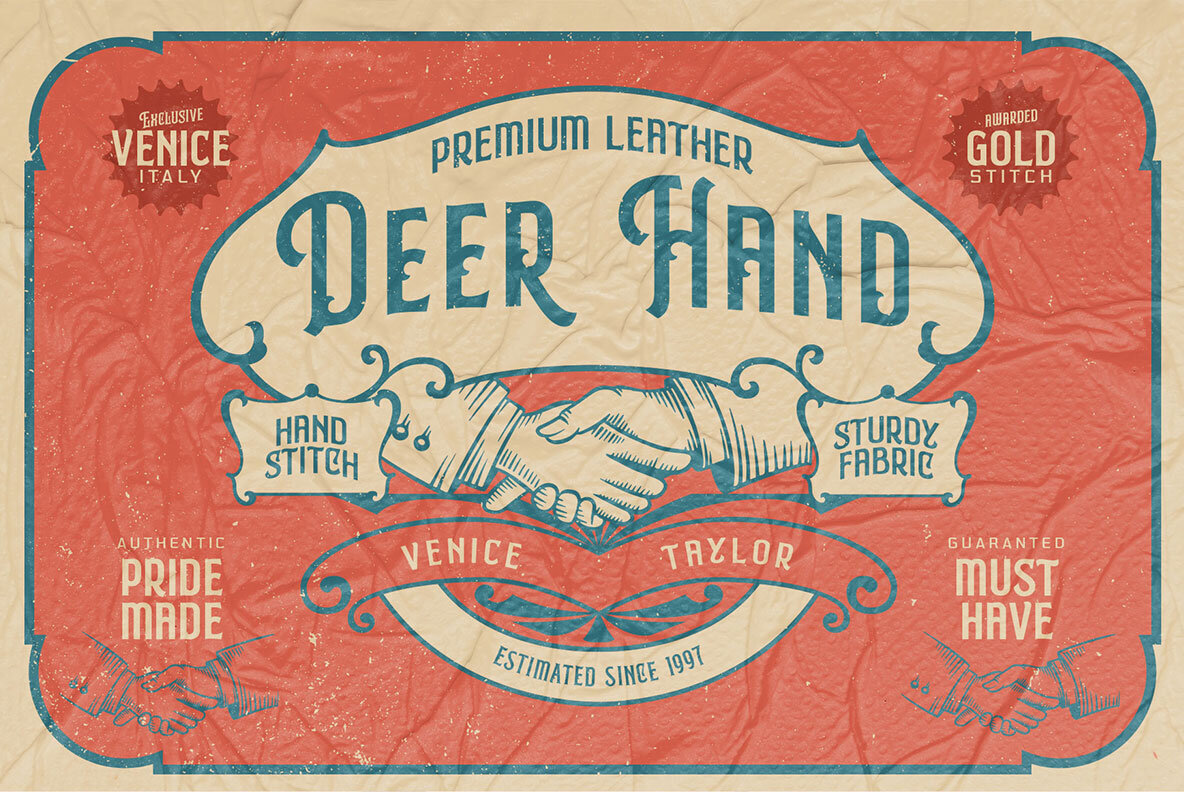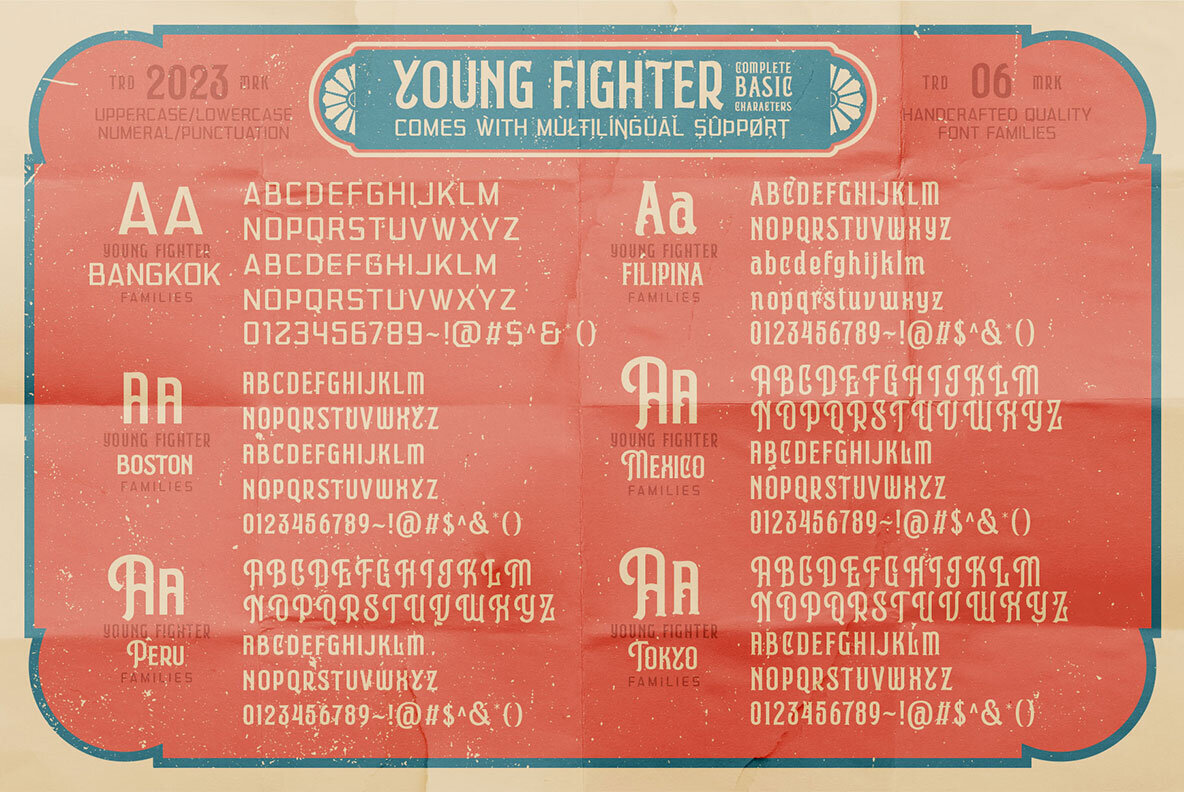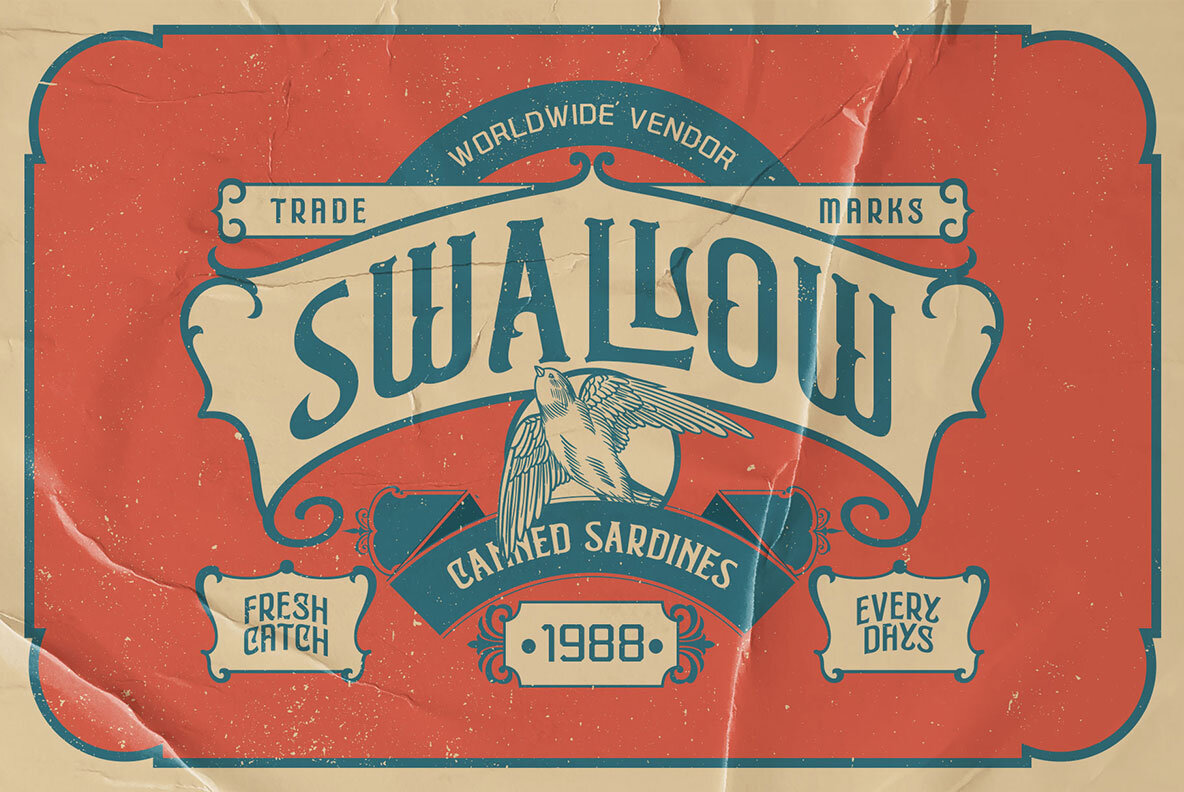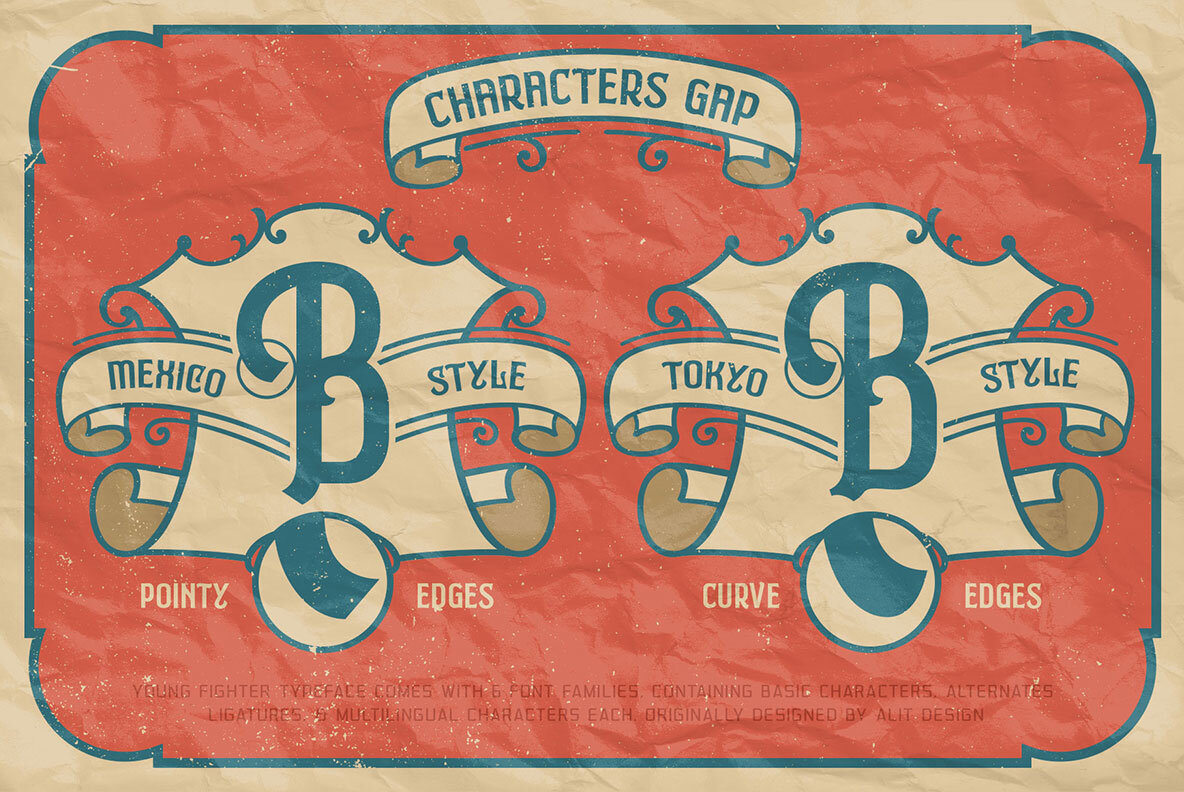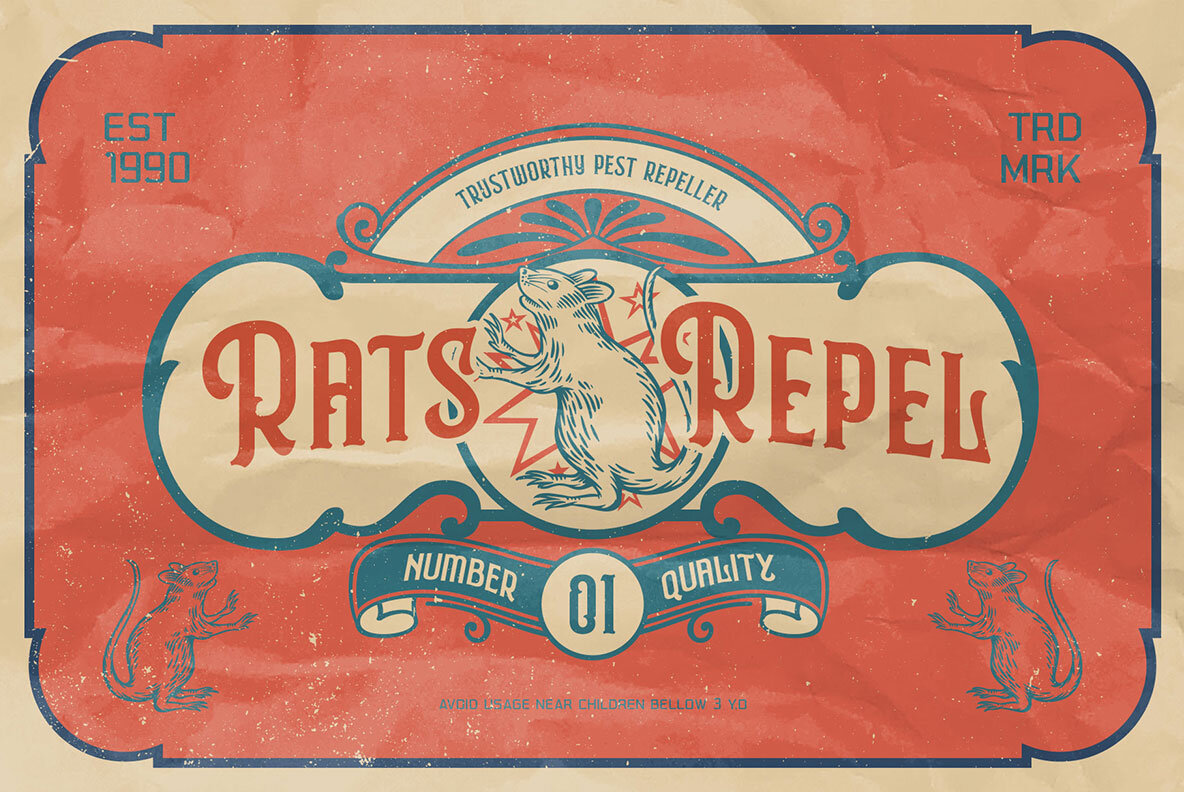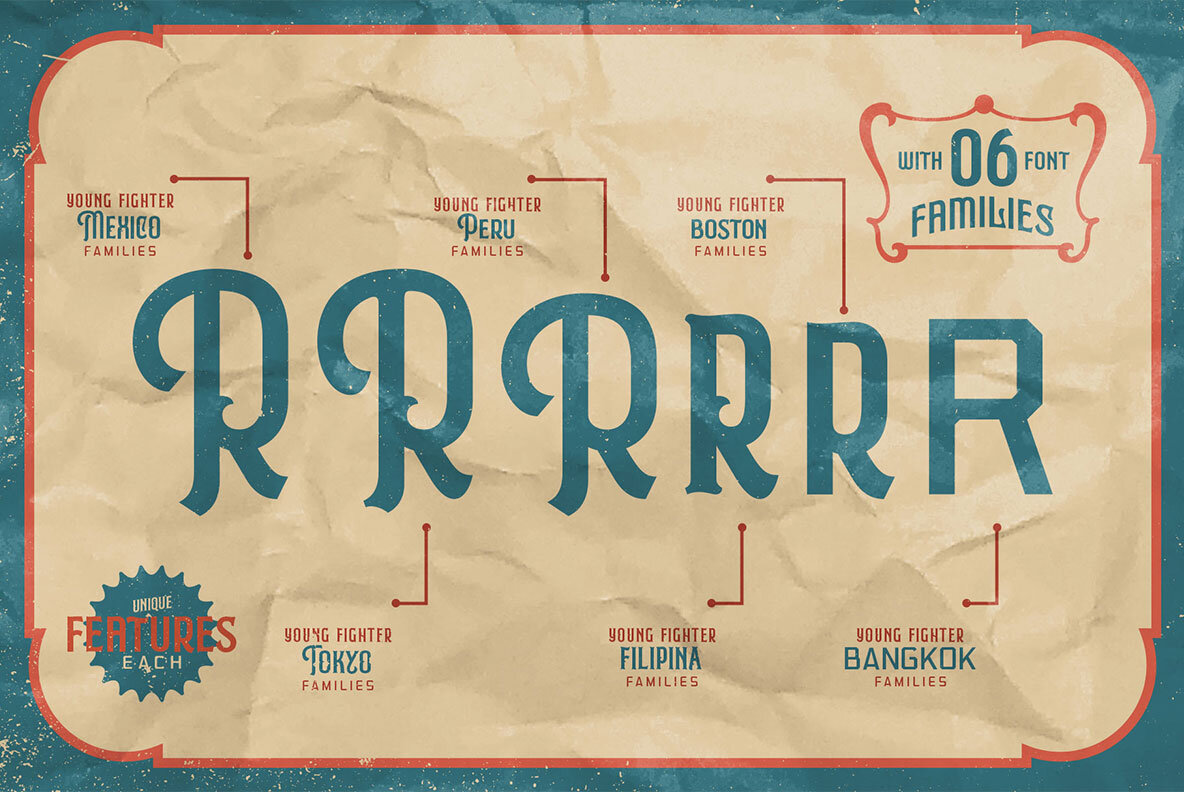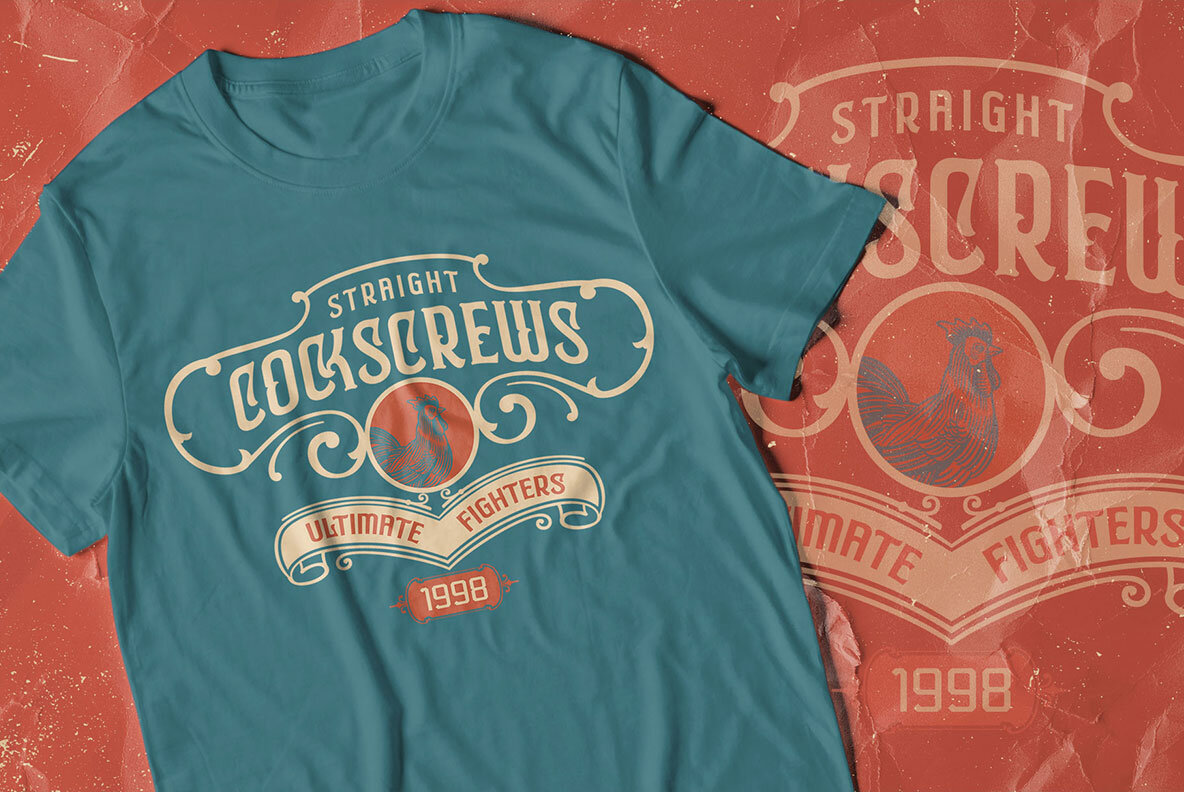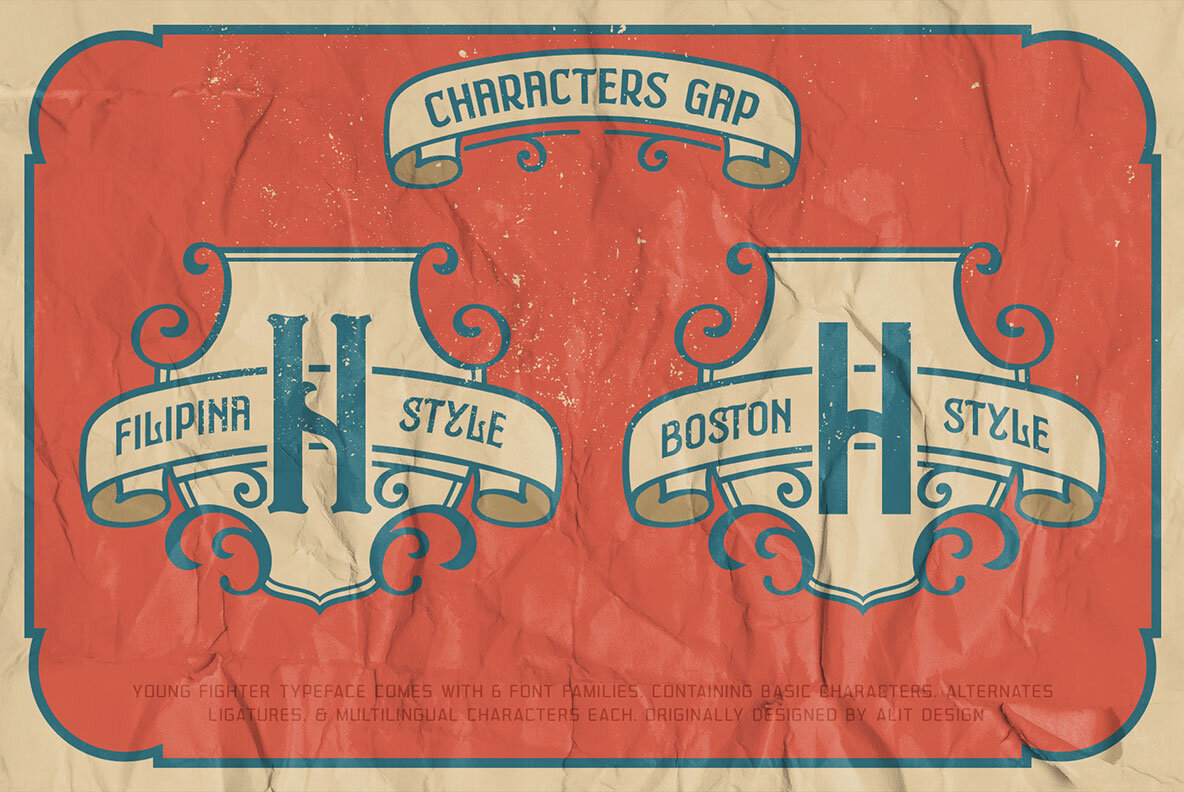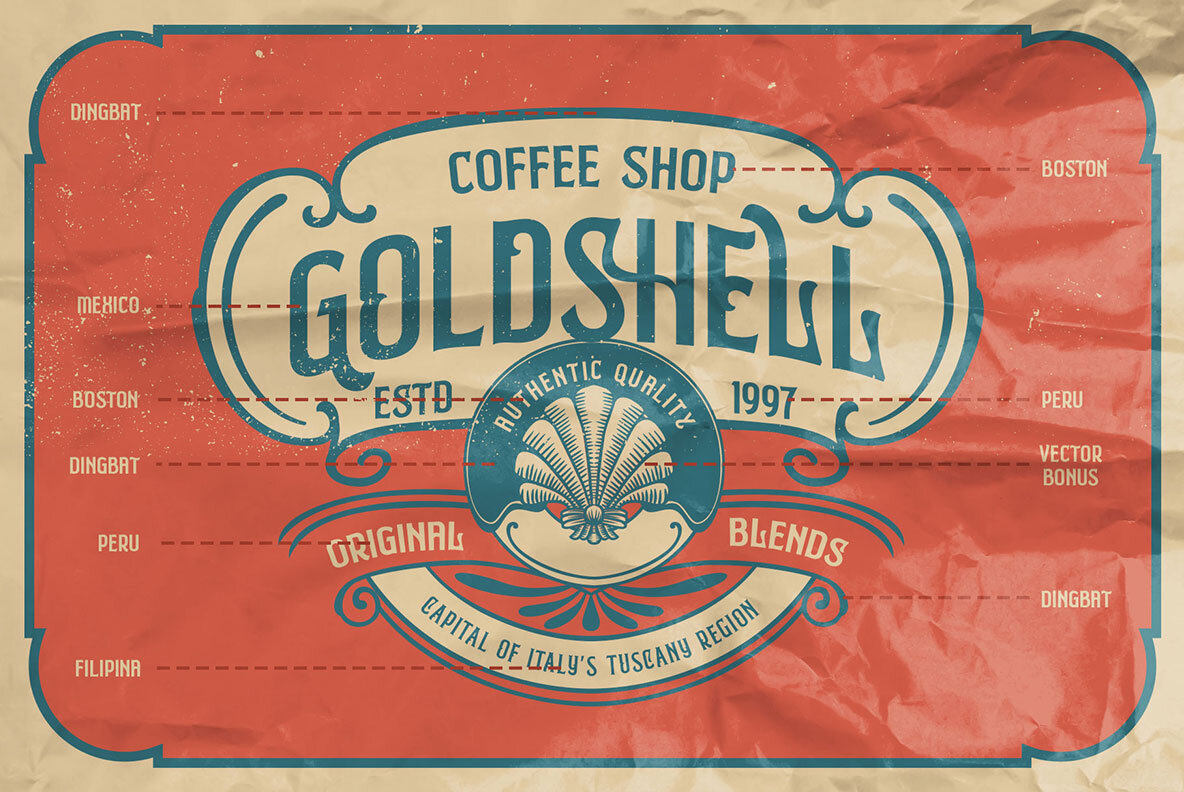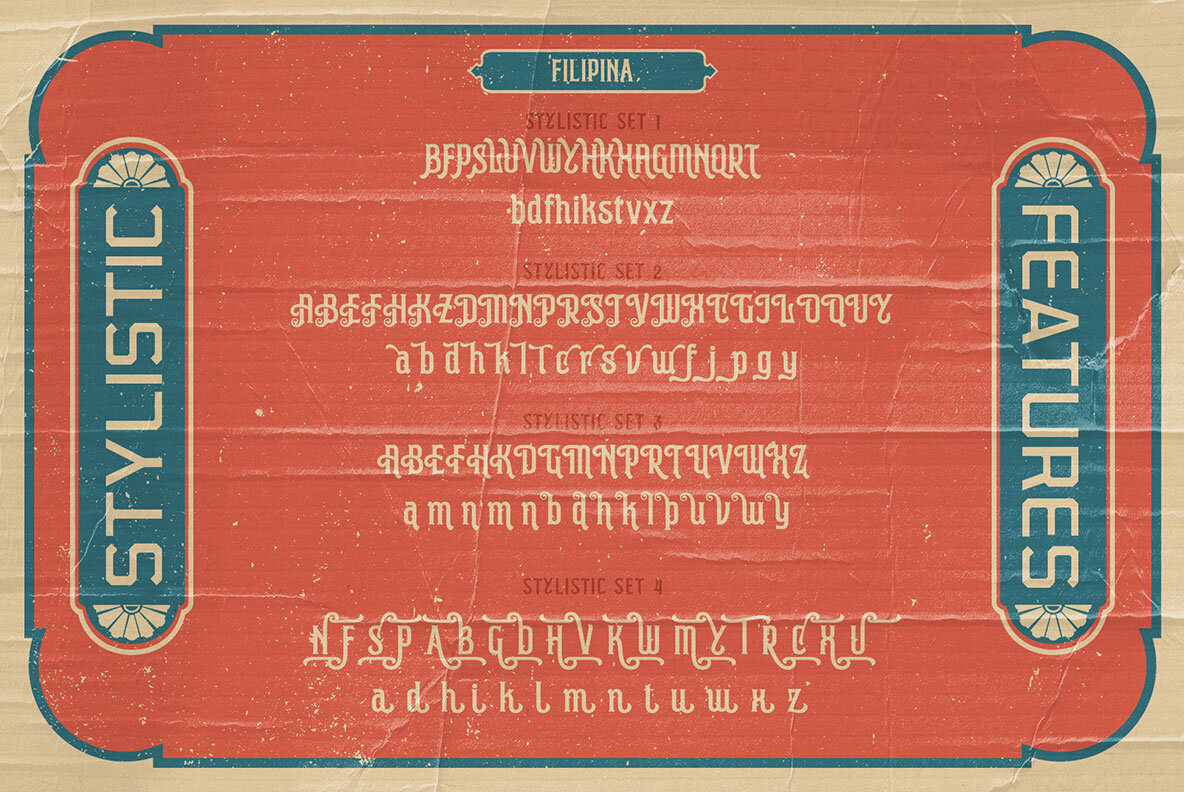
Young Fighter Font
Young Fighter Bangkok Regular
Young Fighter Boston Regular
Young Fighter Element Regular
Young Fighter Filipina Regular
Young Fighter Mexico Regular
Young Fighter Peru Regular
Young Fighter Tokyo Regular
Enter the world of vintage elegance with "Young Fighter" Font Family. Meticulously crafted by the prodigious designer - Alit Suarnegara, this typeface exudes an undeniable charm that effortlessly enhances any design or marketing project. The family comprises six distinct styles, each with its own personality, yet harmoniously complementing each other. This makes it an invaluable asset in the arsenal of any discerning graphic designer, who wishes to infuse an air of classic appeal into their work. The timeless allure of this typeface is further accentuated by the bonus vector illustrations that come bundled with it. These thoughtfully chosen illustrations bear the mark of Suarnegara's signature design aesthetic, and serve as perfect complements to the typeface. Whether you're creating marketing collaterals for a reputed firm or working on a personal design project, "Young Fighter" Font Family ensures your work stands out. Features:Introducing The "Young Fighter" Font Family - A Testament to Timeless Design by Alit Suarnegara